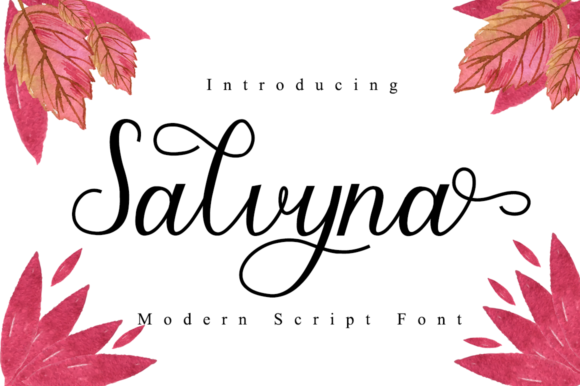
Salvyna Font
Prepare yourself for a captivating journey into the realm of typography, where every letter dances gracefully across your digital canvas. Introducing Salvyna Font, a breathtaking script font that will transform your designs into masterpieces.
Crafted with the utmost precision, each stroke of Salvyna Font exudes elegance and beauty. Manjalistudio's unparalleled artistry shines through in the exquisite tail style letters that lend a touch of whimsy to your creations.
Unleash your creativity with Salvyna Font's versatility. Whether you're crafting stunning logos, eye-catching social media posts, or enchanting invitations, this font will elevate your designs to the next level. Its timeless charm will add a touch of sophistication to any project, making it a must-have for designers seeking to leave a lasting impression.
Immerse yourself in the world of Salvyna Font and discover a world of endless possibilities. Let its graceful curves and enchanting details captivate your audience, leaving them spellbound by the beauty of your typography.
Whether you're an aspiring designer or a seasoned professional, Salvyna Font is the perfect addition to your creative toolkit. Its versatility and undeniable charm will empower you to create designs that resonate with your audience, leaving an indelible mark on their hearts and minds.